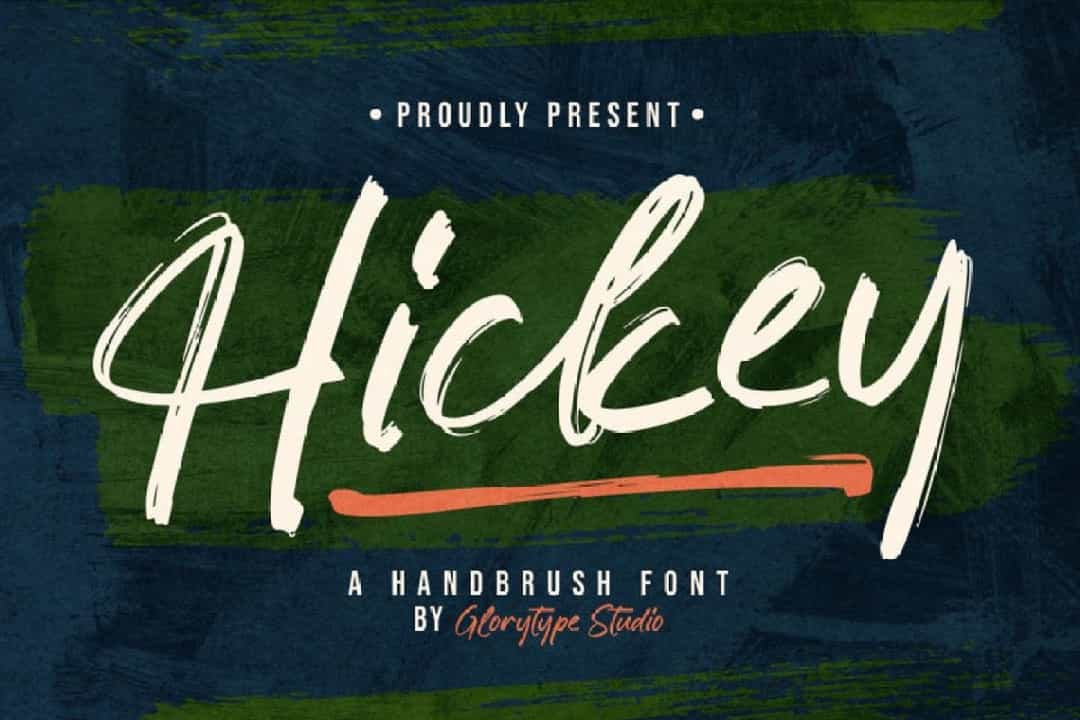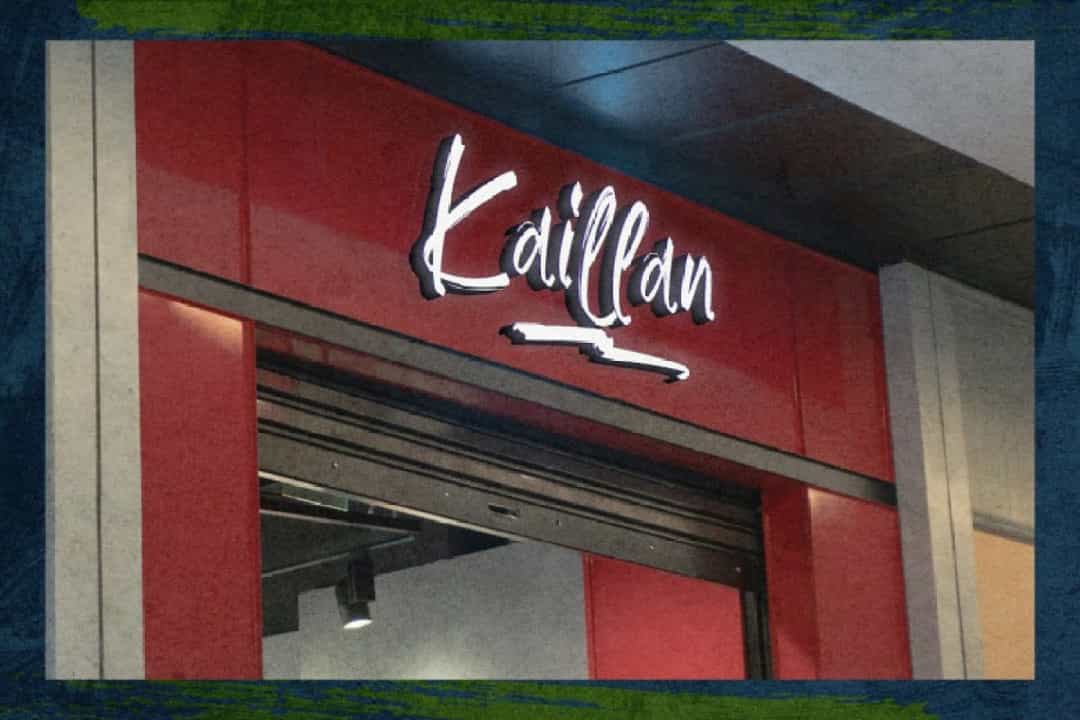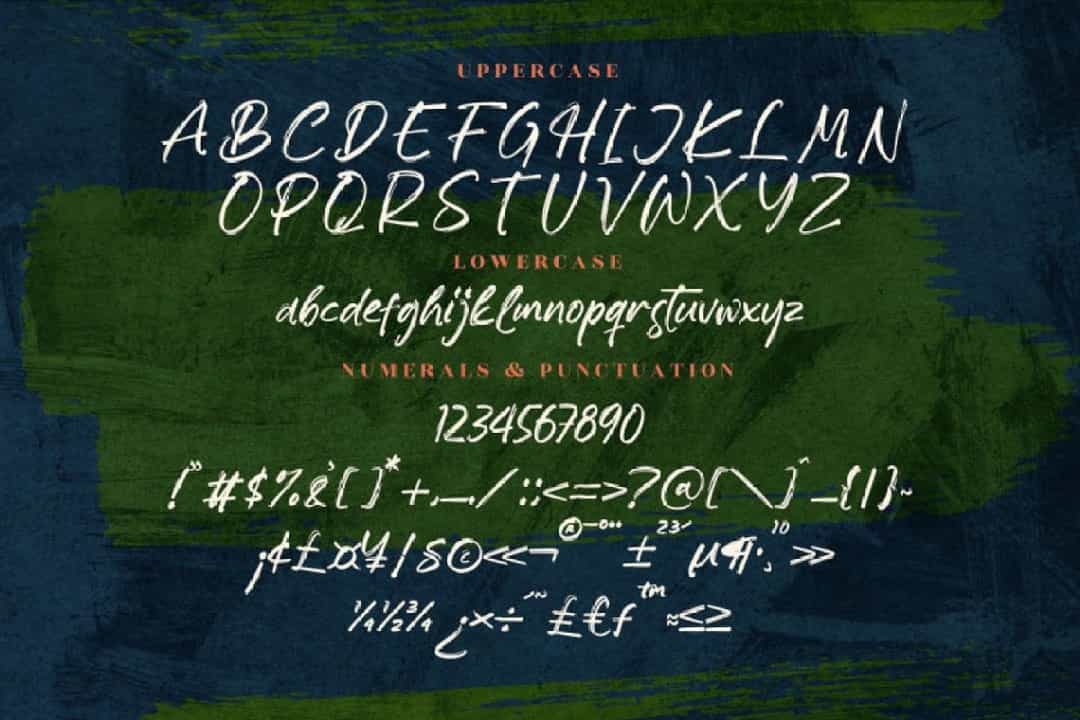
Glorytype Studio’s Hickey Handbrush Font is ideal for any creative project, including logos, branding design, homeware packaging, mugs posters quotes bags for shopping t-shirts books name cards greeting cards invitation cards labels photo watermark and special occasions as well as other projects that require handwritten elegance.